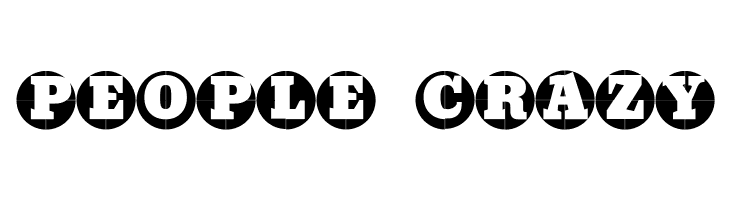
BRUTO-MAYUSCULA Font
- Font: BRUTO-MAYUSCULA
A bold, geometric font with characters enclosed in circular shapes, offering a modern and industrial aesthetic.
Bold, geometric font with characters enclosed in circles, offering a modern and striking appearance.
( Fonts by Rick Mueller )